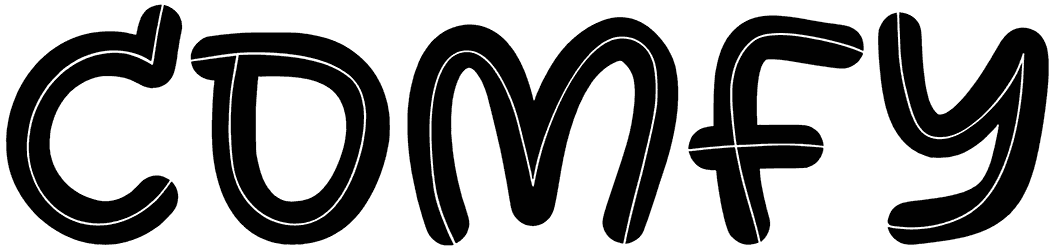
When it comes to cartoon fonts with a more approachable look, the Pumpqeen font is a standout. This cartoon font can convey a wide range of tones when used with the right colors in your design.
Whether you choose to utilize it for school and kindergarten logos, story printed and screen books, or toy packaging, it’s certain to bring a classic and energetic feel to your projects.